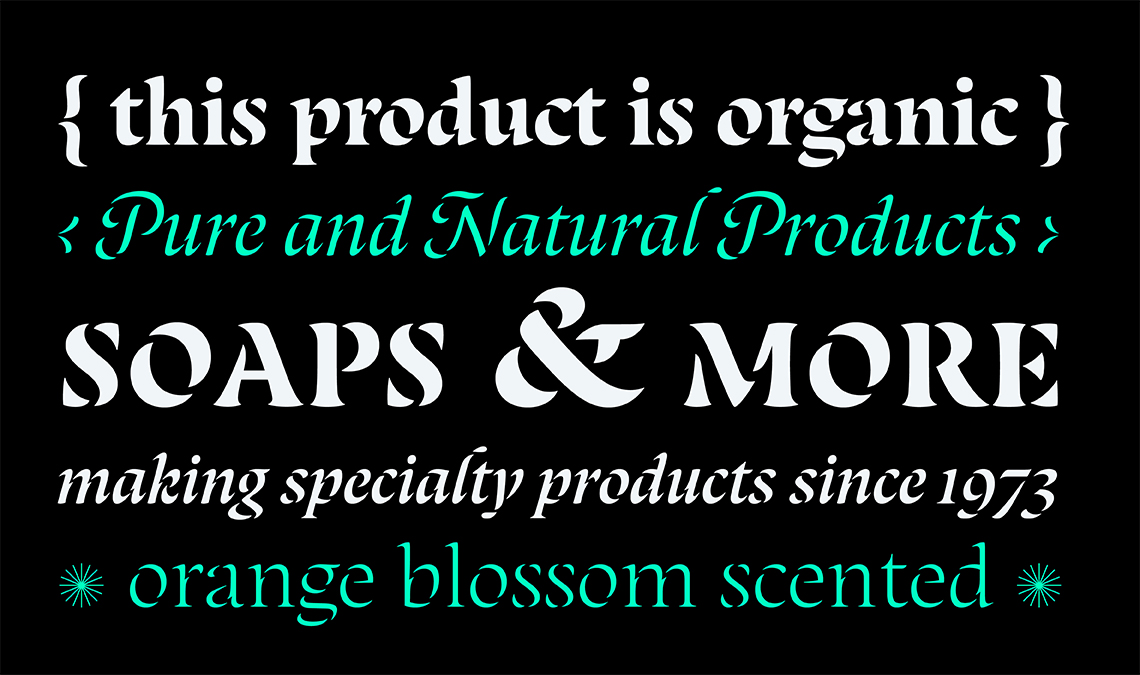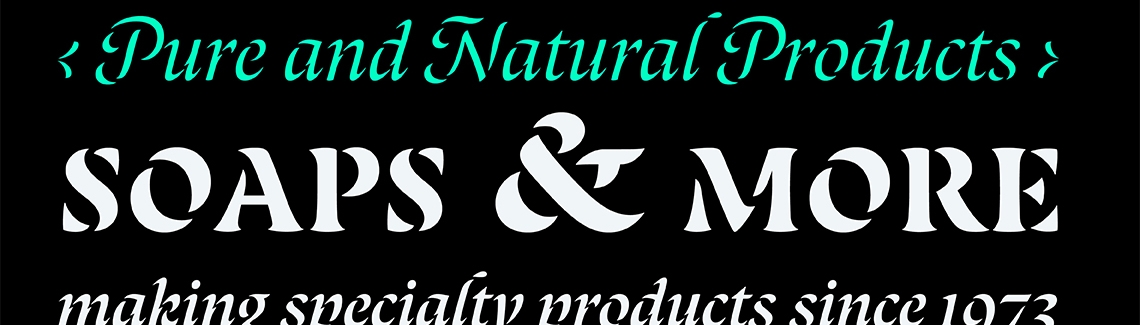
New release: Laima
Special occasions need a special font. The Laima font family by Bogidar Mascareñas is precisely that. We are very pleased to introduce this brand-ready stencil font formed by a flowing calligraphic brush instead of rigid machinery — lively, unexpected, and captivating.
Laima stencil font
The stencil font category has a range of looks and styles. But because of what it has to accomplish, over the last several decades stencil has almost come to mean only the strokes that are necessary.
We are proud to announce the Laima font family by Bogidar Mascareñas, a stencil formed by a calligraphic brush! This flowing beauty has letter parts akin to the stop-and-start rhythm of a stunning pearl necklace held together by delicate threads. Laima was awarded the Gerard Unger Scholarship (previously, Typeface Publishing Incentive Programme) and now you get to see why. Check out the alternates on our website type tester and put it to work in your next upscale event or rebrand.
Laima stencil branding
Laima
Laima stencil font